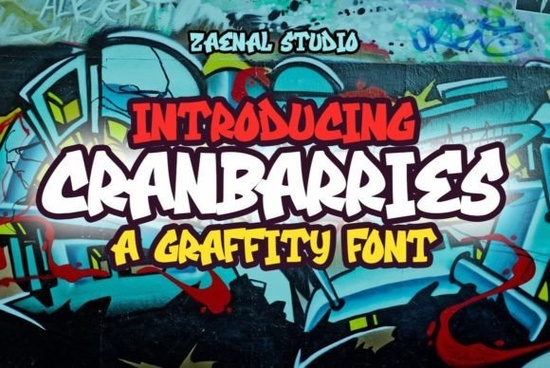
If you’ve been searching for a display font that brings personality without sacrificing polish, the Cranbarries Font might be exactly what your next project needs. It’s got that urban edge with a playful twist think hand-painted signs, vintage cartoon titles, or streetwear logos that want to stand out without screaming. Whether you’re designing merch, branding a small business, or just experimenting with typography for fun, this font adds character while staying surprisingly versatile.
What makes Cranbarries especially handy is how it balances grit and grace. The letterforms feel spontaneous, like they were sketched with spray paint or chalk, but they’re clean enough to scale well on everything from T-shirts to packaging. You’ll also get alternate glyphs built right in no extra downloads or font-switching needed. Since it’s PUA encoded, you can easily access swashes and stylistic variations through any design app that supports OpenType features (like Illustrator, Canva, or Affinity Designer).
Who should use this font?
It’s not just for graffiti artists or streetwear brands. Here’s where Cranbarries really shines:
- Print-on-demand sellers Pair it with simple graphics for mugs, posters, or stickers that feel handmade and authentic.
- Small business owners Coffee shops, food trucks, or indie boutiques looking for a logo that feels local and lively.
- Content creators YouTube thumbnails, Instagram quotes, or TikTok overlays that need to grab attention fast.
- Crafters and hobbyists Use it on Cricut or Silhouette projects for vinyl decals, tote bags, or greeting cards with attitude.
If you like fonts that have a bit of bounce and texture like USA Day or Allspice you’ll probably feel right at home with Cranbarries. It’s not trying to be sleek or corporate. Instead, it leans into imperfection as part of its charm.
How do I make the most of the alternates?
The alternates included aren’t just decorative fluff. They let you tweak individual letters so your wordmark doesn’t look cookie-cutter. Try swapping out the ‘R’ or ‘Y’ in your headline to break up repetition. Mix uppercase and lowercase styles for a more organic layout. If you’re using software like Photoshop or Procreate, dig into the glyph panel you’ll find swashes and tails that can turn a basic title into something scroll-stopping.
One thing to note: while the font has personality, it’s not meant for body text or long paragraphs. Stick to headlines, logos, labels, or short phrases. At small sizes, some of the finer details might blur, so test your output before finalizing prints or cuts.
Pro tip: Before committing to a full design, type out your key words in Cranbarries and print them at actual size. Sometimes a font looks great on screen but loses impact when scaled down or printed on fabric. A quick mockup saves time later.
- Pair it with a clean sans-serif for balance something like Montserrat or Lato keeps things readable.